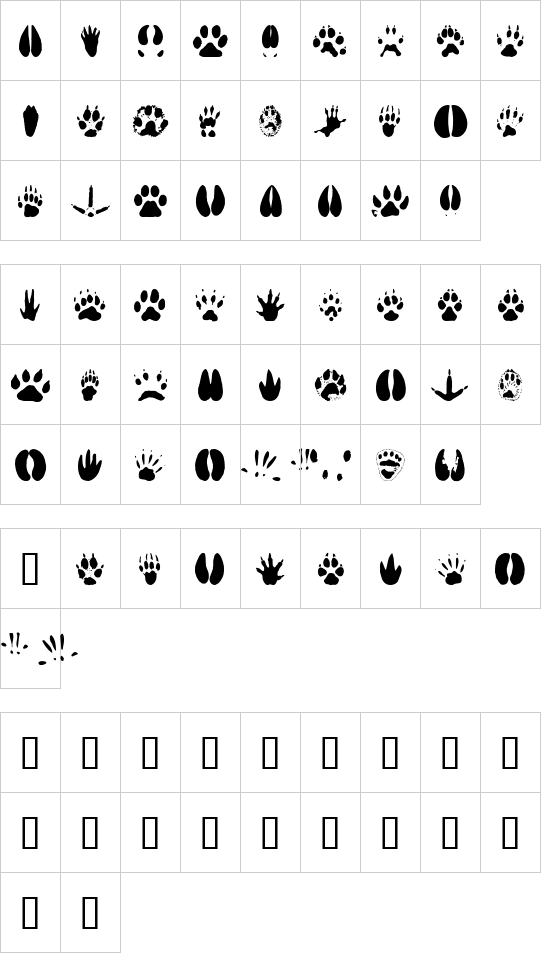
AnimalTracks is a dingbat font filled with paw prints and animal footprint symbols rather than letters, mapping a range of creature tracks across the keyboard. Each glyph reads like an imprint left in soft ground, giving the set a natural, outdoorsy charm.